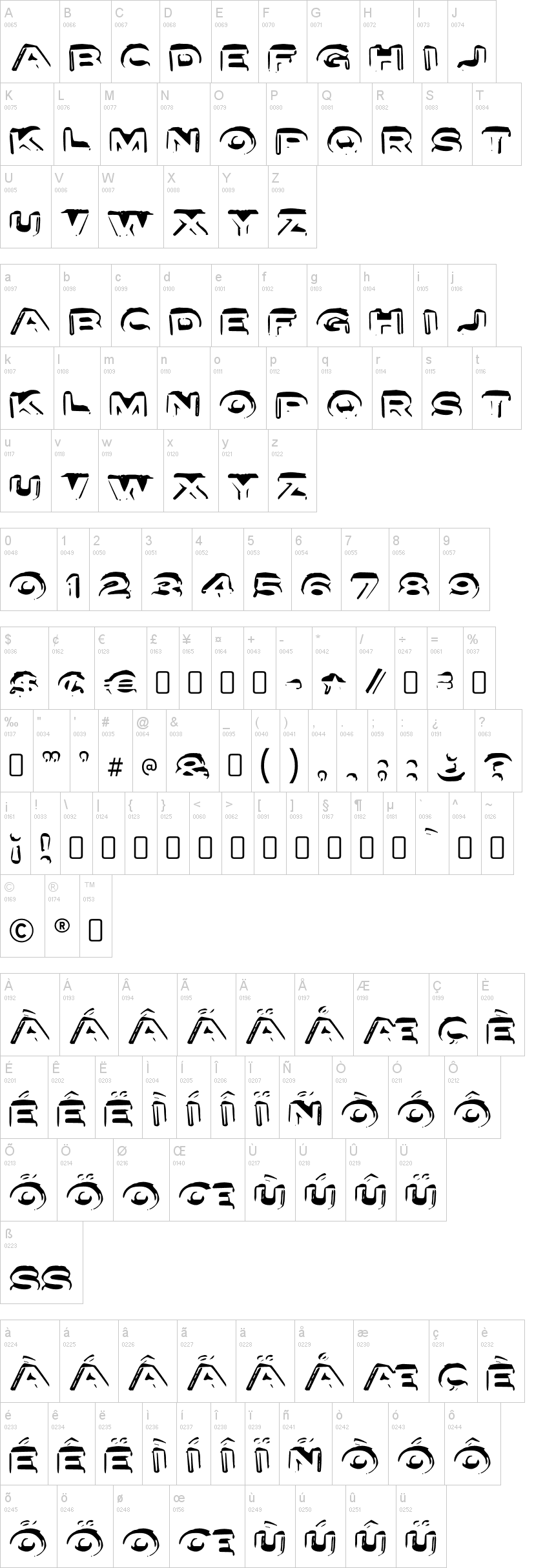
Шрифт Letter Set
Letter Set is a set of 3 fonts based on ceramic letters used for titling home movies in the 1960s. Don't forget to read the files inside the zip for details. Updated in 2012.